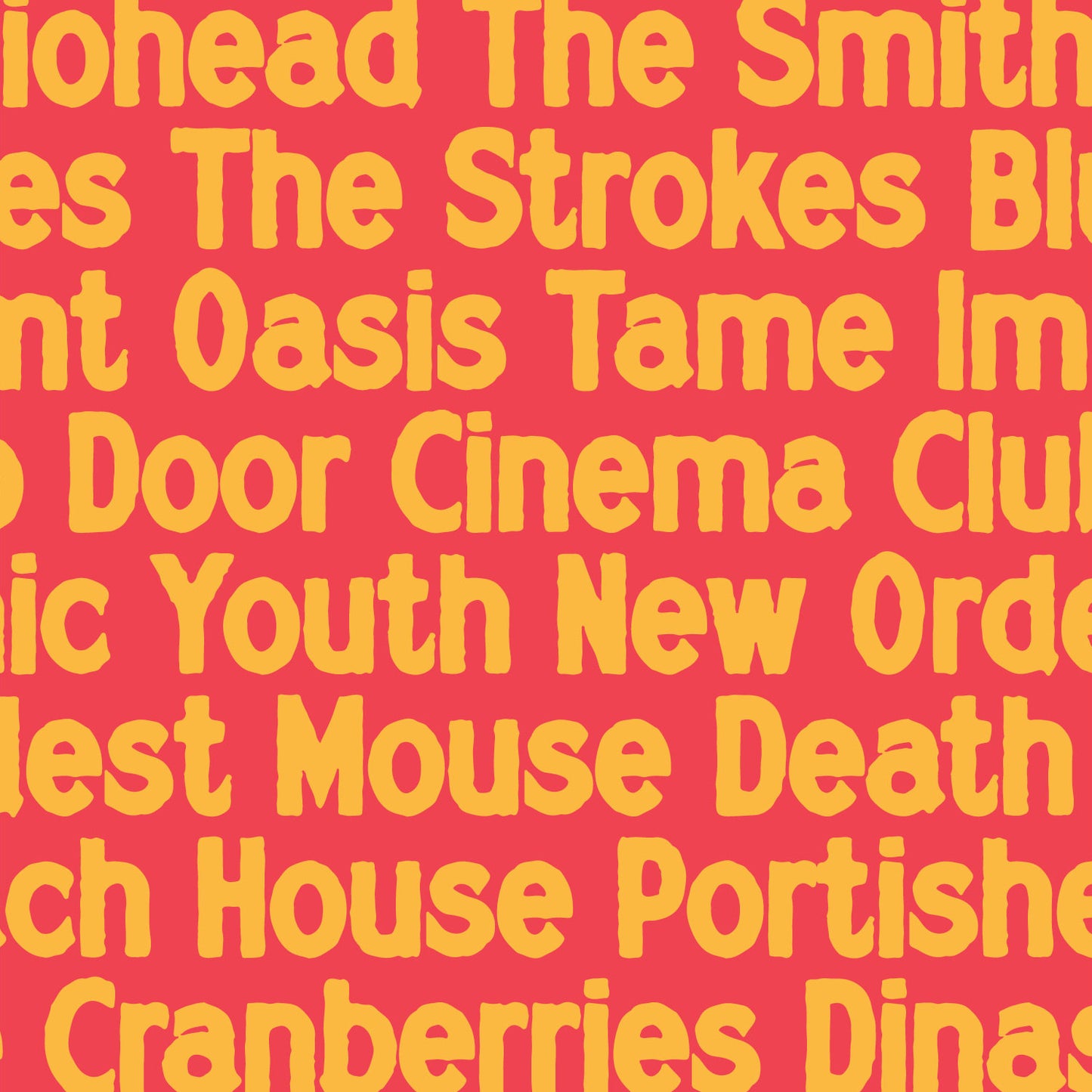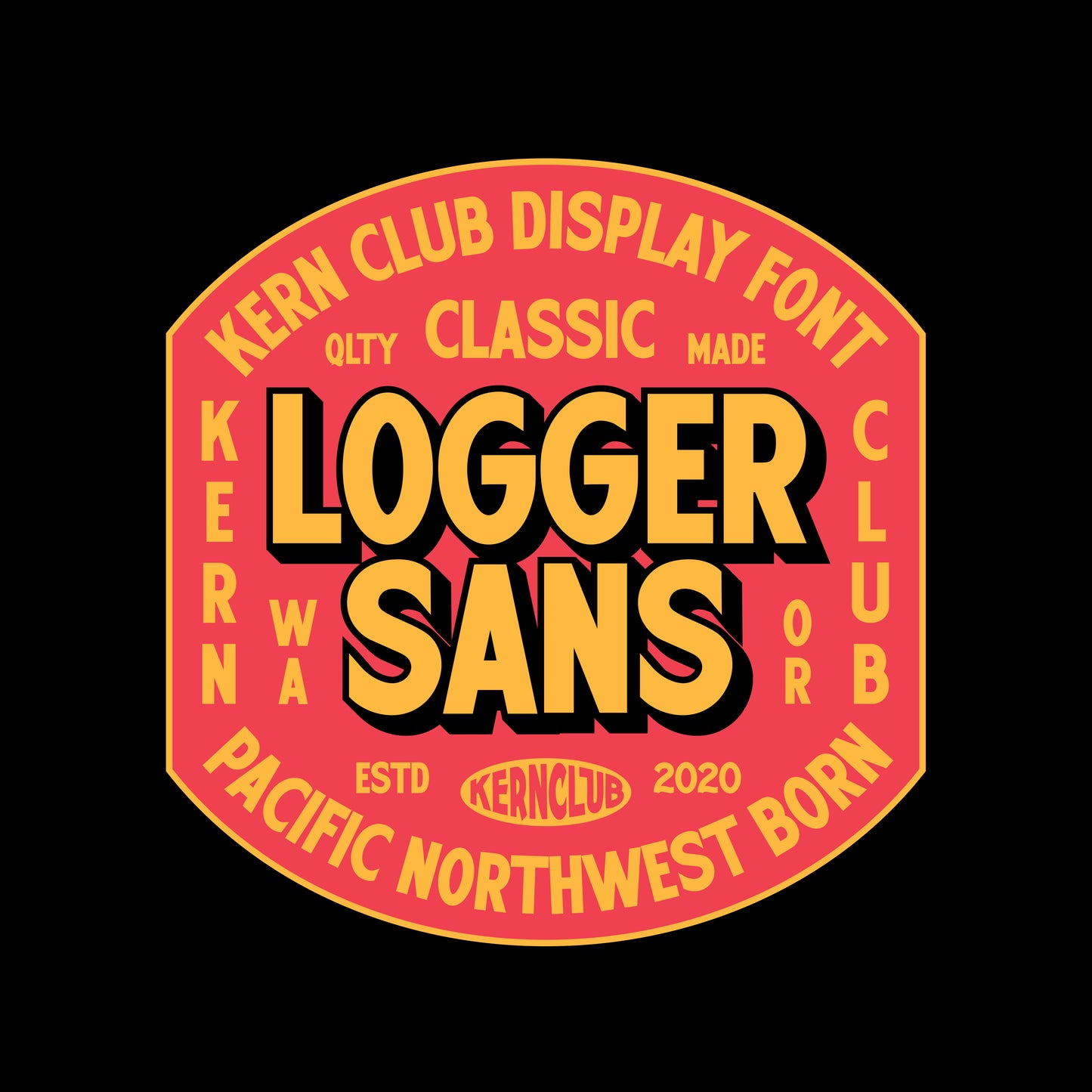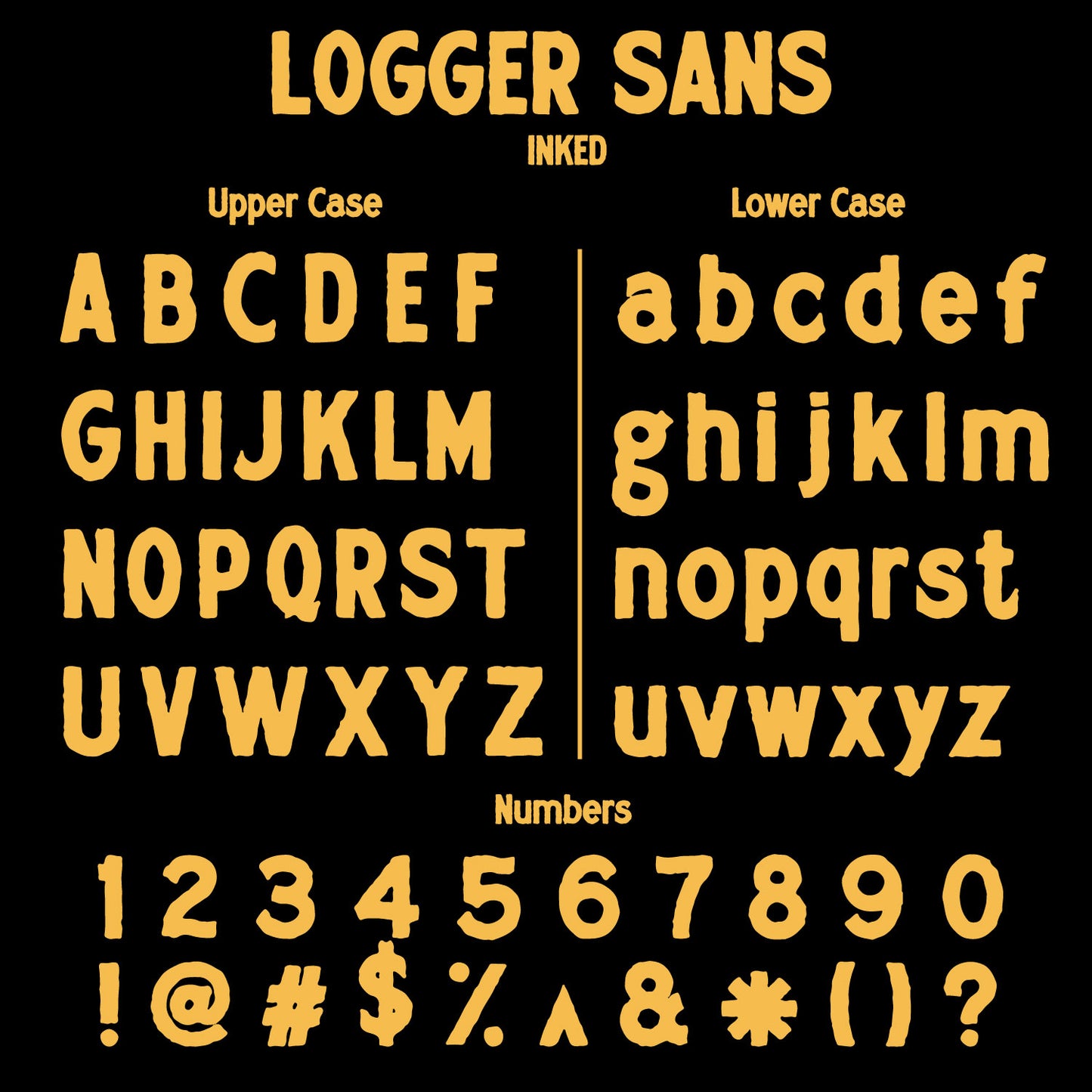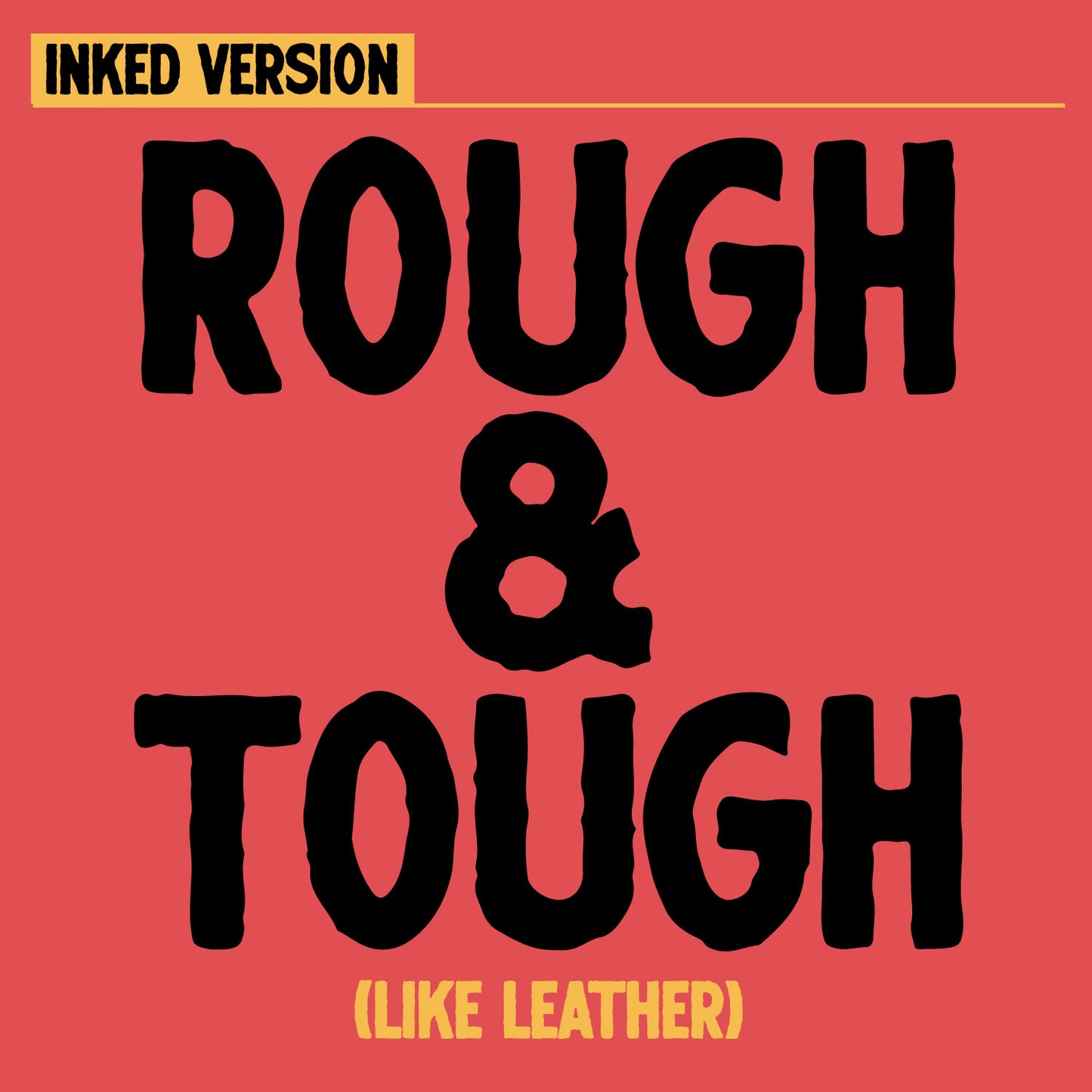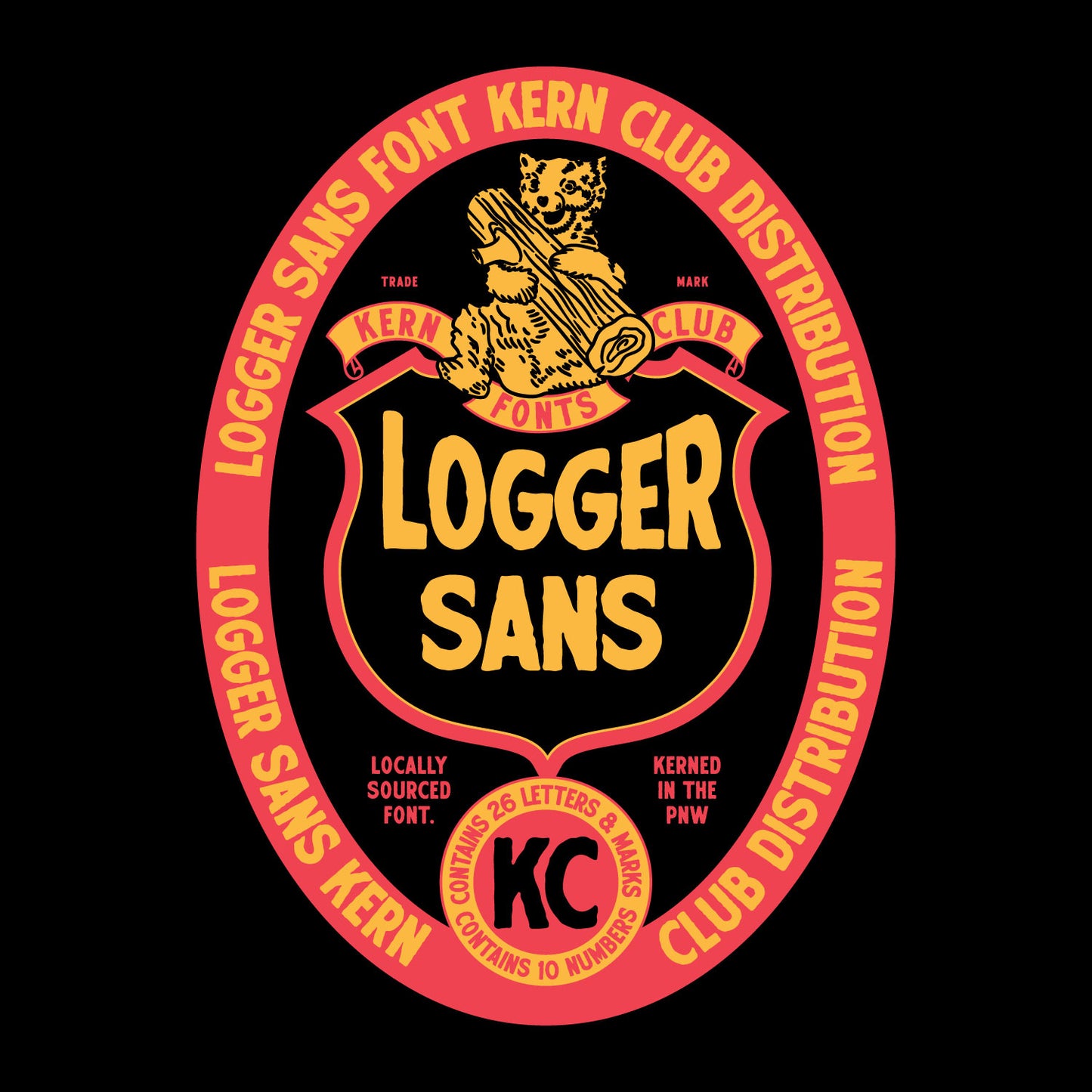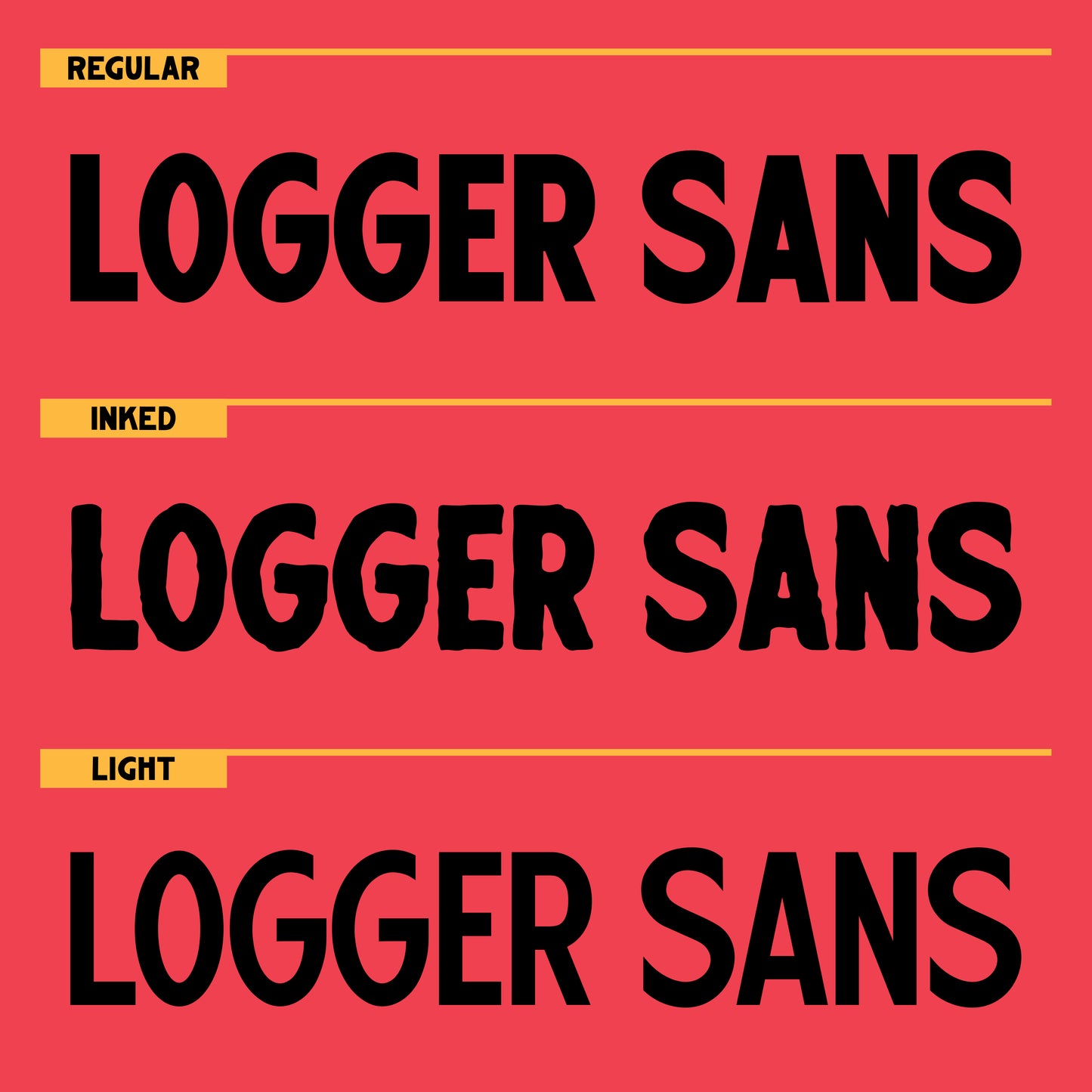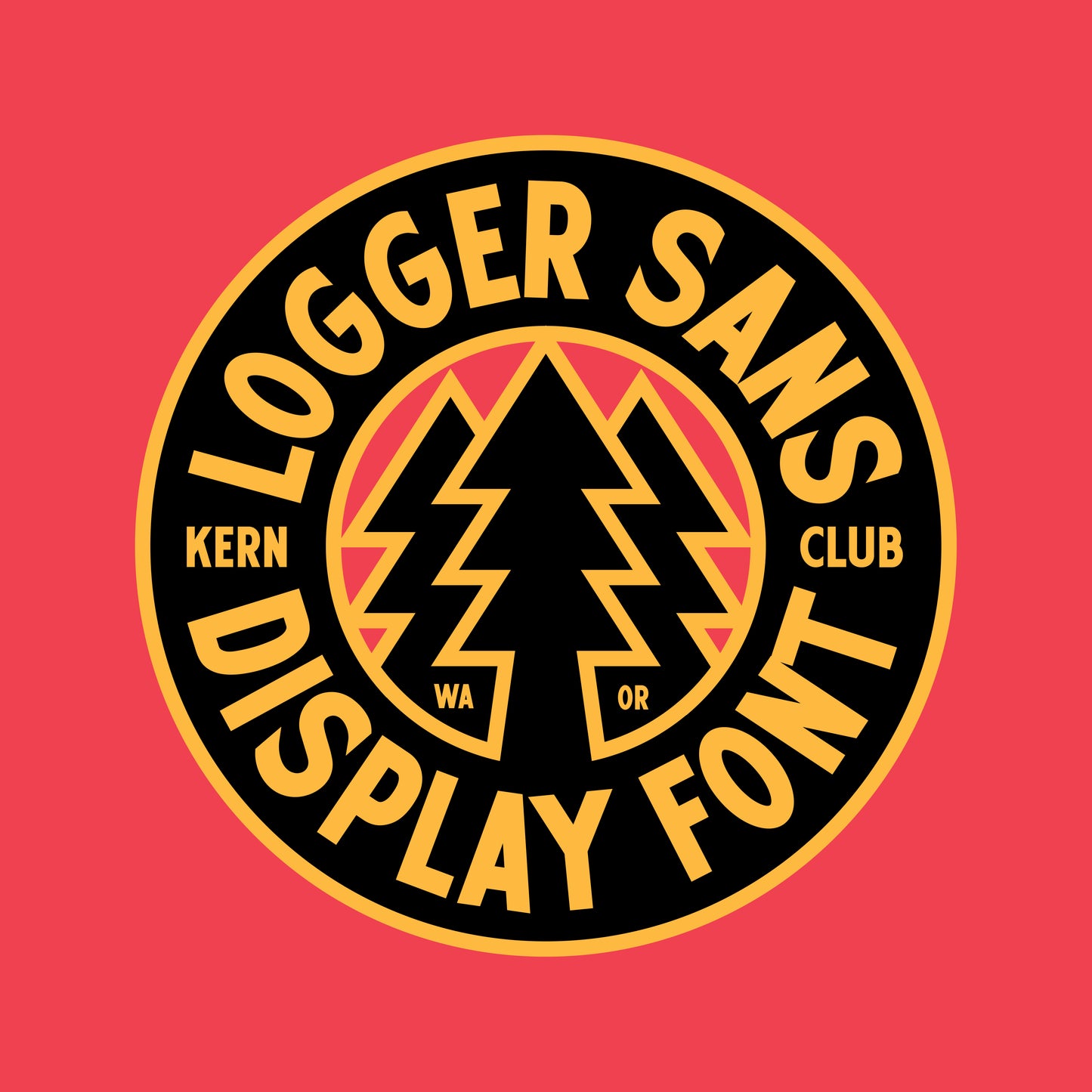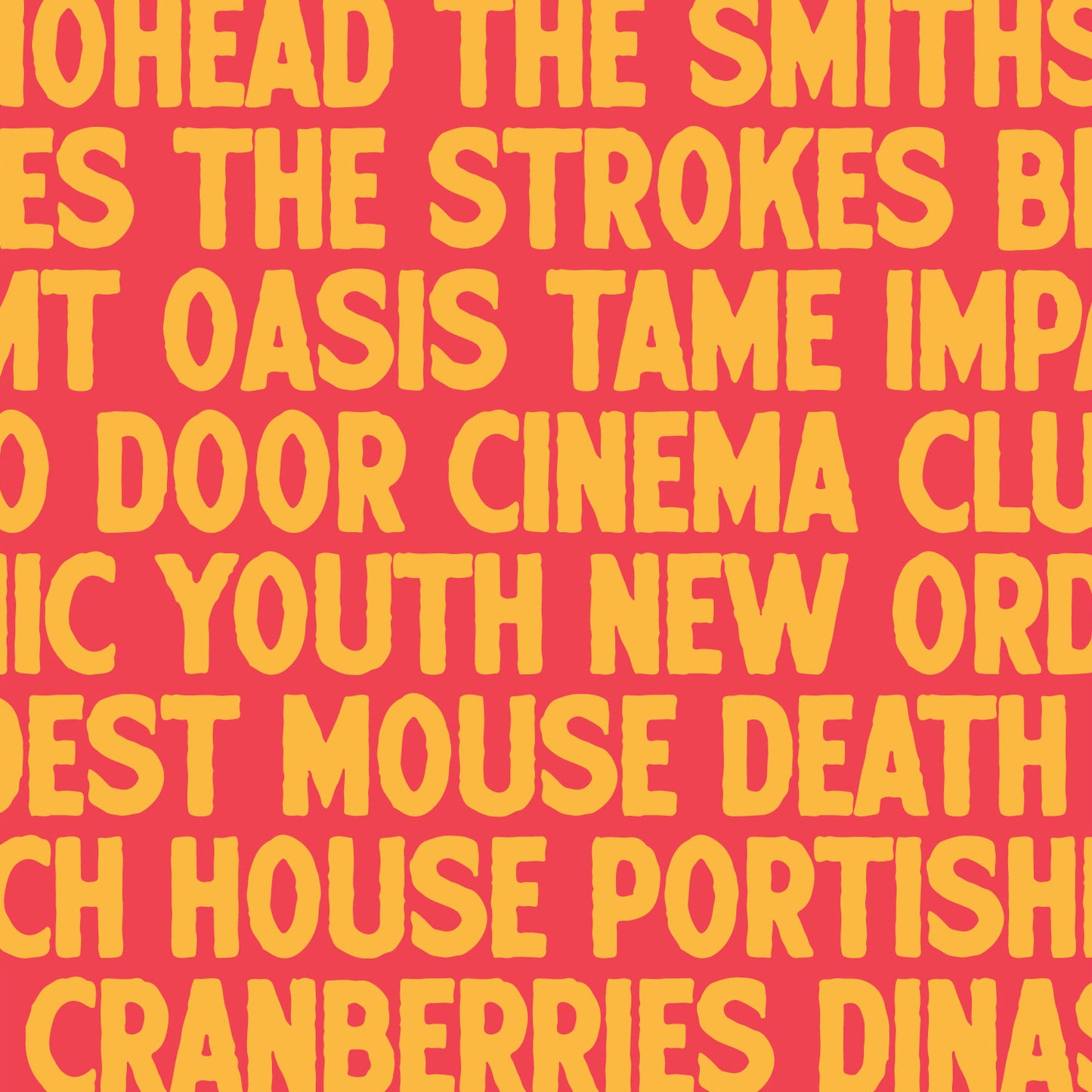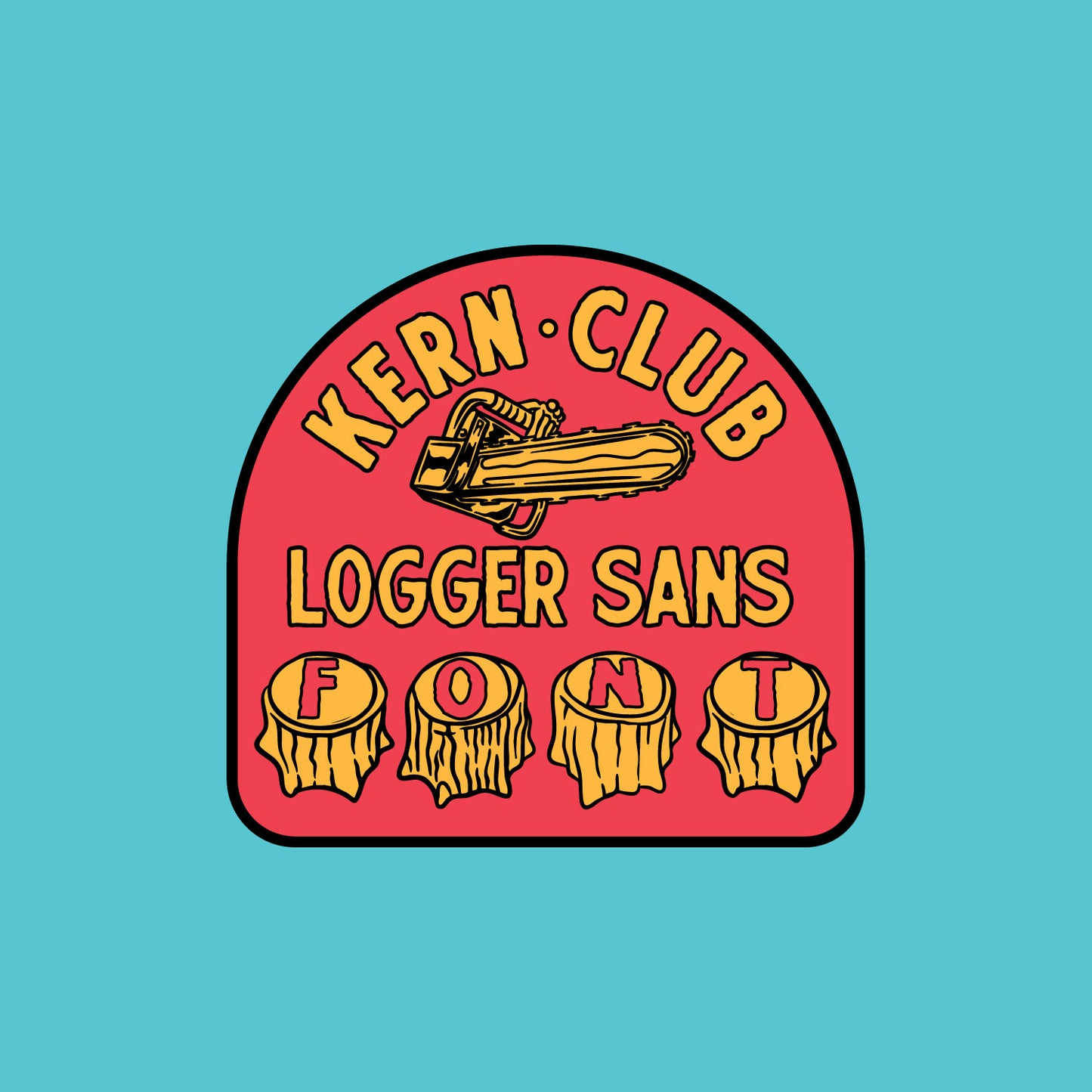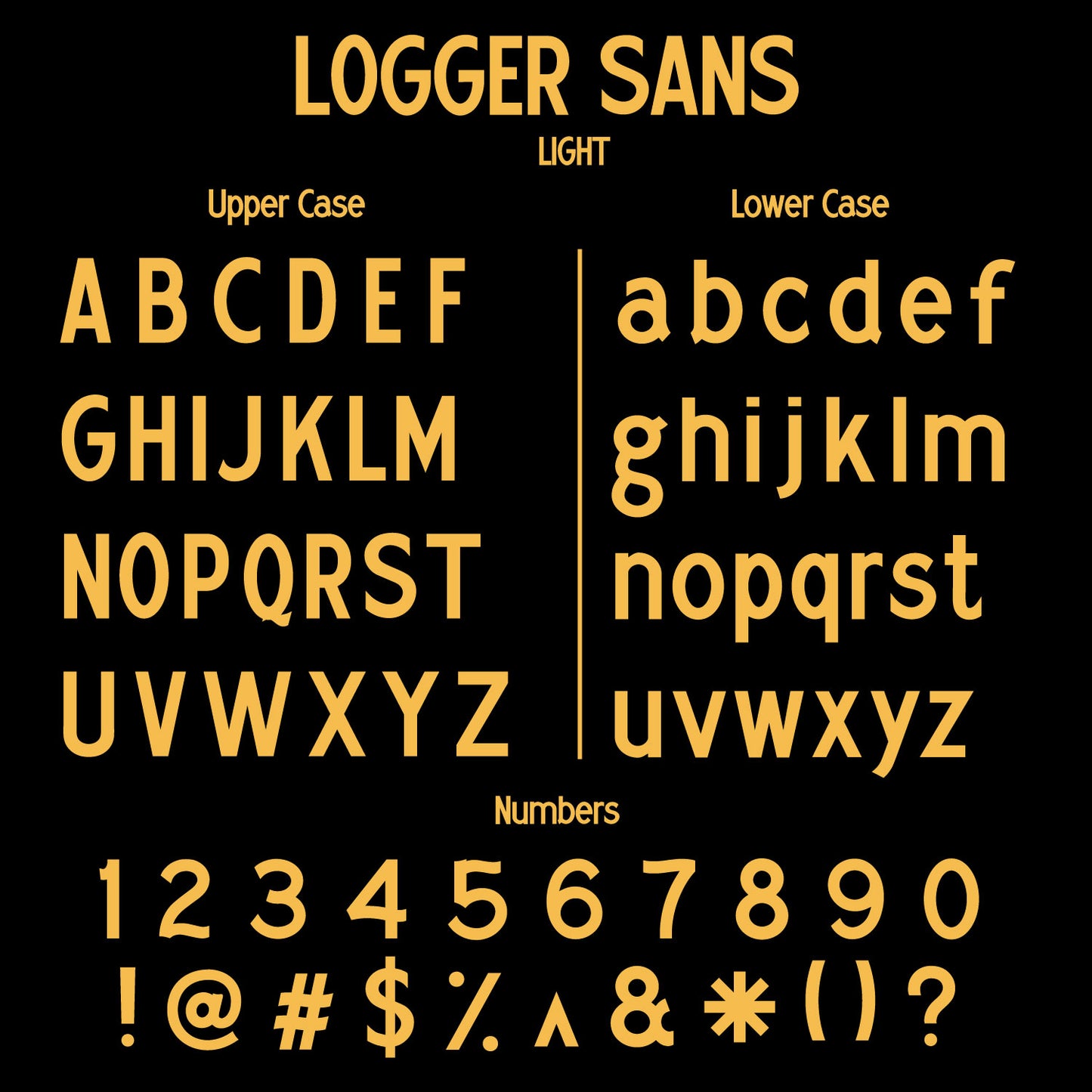
Logger Sans Font
Logger Sans is bold, sturdy, and timeless. If you're feeling lazy... let Logger Sans do all the work for you!
- Lowercase Character Set a-z
- Includes regular, thin & inked versions (3 fonts)